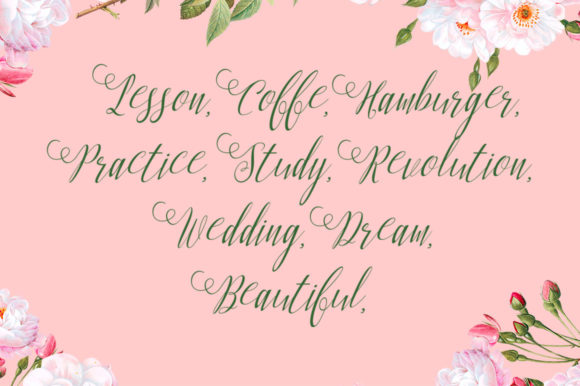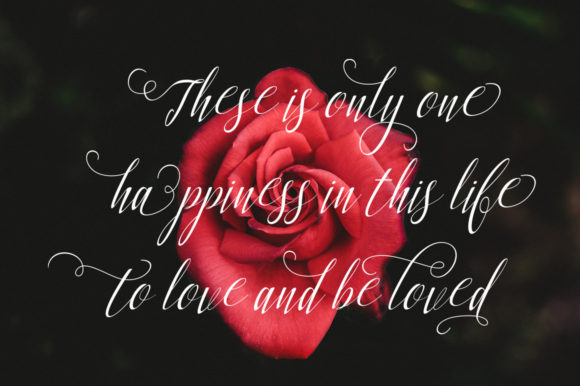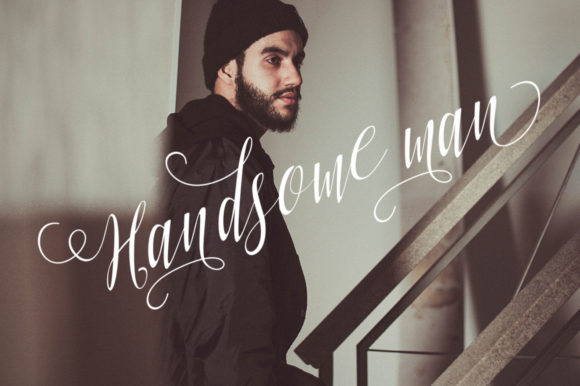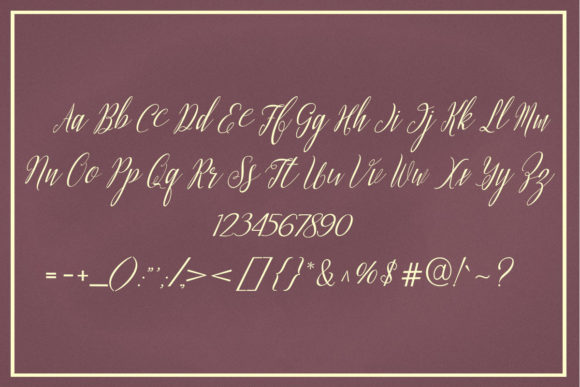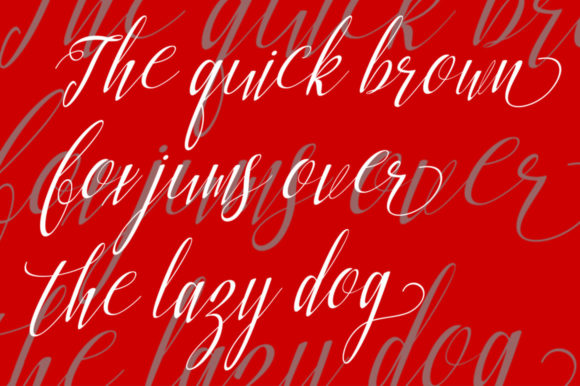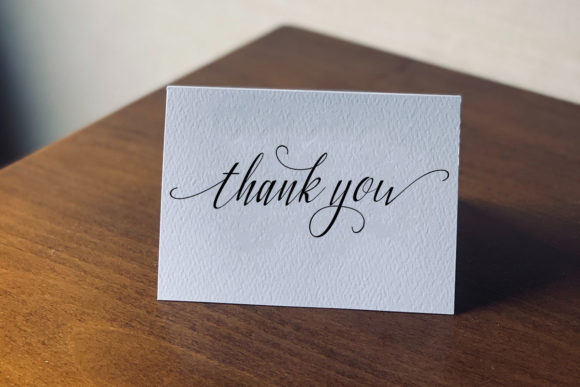
Introduction to Mahartha Script Font
Have you ever been in the midst of a creative project, searching for the perfect font to elevate your design and bring it to life? That’s exactly where the Mahartha Script Font comes in – a game-changing design resource that adds a touch of elegance and sophistication to any high-quality project.
As a designer, you know how crucial it is to find a font that not only complements your design but also adds a unique touch. Mahartha Script Font is the perfect solution, offering an impeccable form and a contemporary atmosphere that’s sure to leave a lasting impression. With its PUA encoding, you’ll have access to all glyphs and swashes, giving you the creative freedom to experiment and push the boundaries of your design.
Key Features of Mahartha Script Font
- High-quality design resource ideal for creative projects, including invitations, logos, and signage.
- Features a beautiful, elegant script style with a transparent background, making it versatile for various design applications.
- Perfect for designers looking for a unique, creative touch for their projects, with a distinctive and sophisticated aesthetic.
Honest Review: Mahartha Script Font
I recently had the chance to work with the Mahartha Script Font, and I must say, it’s a fantastic addition to any designer’s arsenal. This high-quality font is perfect for a creative project that requires a touch of elegance and sophistication.
Here are some of the things that work well with the Mahartha Script Font:
- ✨ Beautifully crafted lettering with a smooth, flowing feel
- ✨ Perfect for projects that require a personal touch, such as wedding invitations or custom signage
- ⚠️ Limited font weights and styles, which may not be ideal for more complex designs
- ⚠️ May not be suitable for large blocks of text, as it can become difficult to read
Introduction to Mahartha Script Font
The Mahartha Script Font is a high-quality design resource ideal for creative projects. It features a beautiful, elegant script style that is perfect for adding a touch of sophistication to your designs.
Getting the Most Out of Mahartha Script Font
To get the most out of the Mahartha Script Font, use it sparingly to add emphasis to key elements in your design. Experiment with different font sizes and colors to create visual interest.
The Mahartha Script Font is perfect for wedding invitations, birthday party invitations, and other creative projects that require a touch of elegance and sophistication.